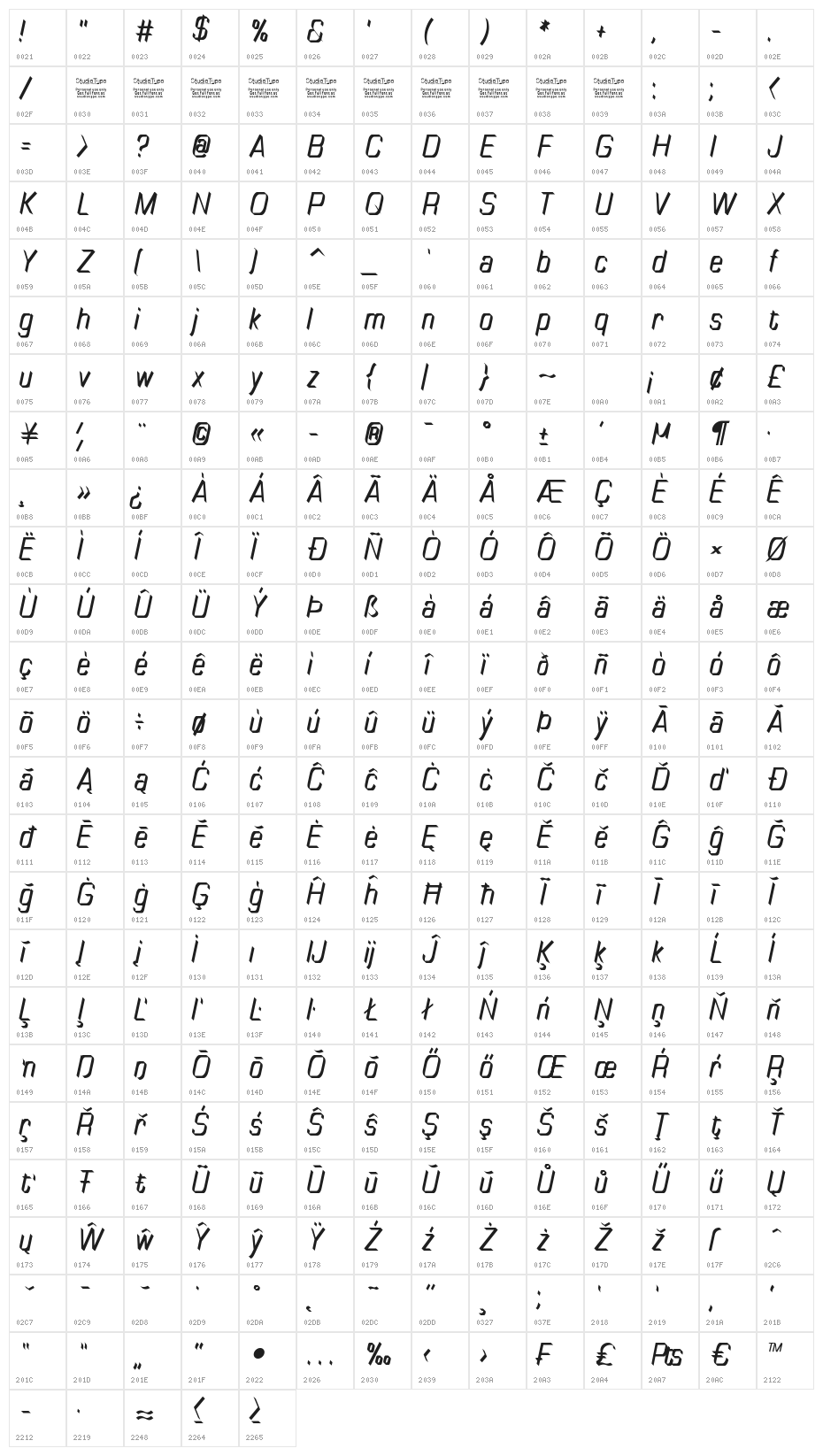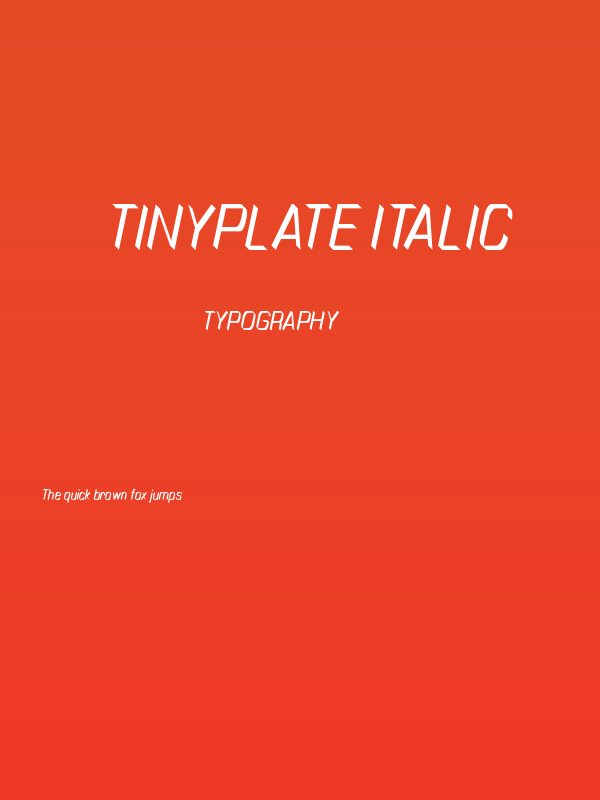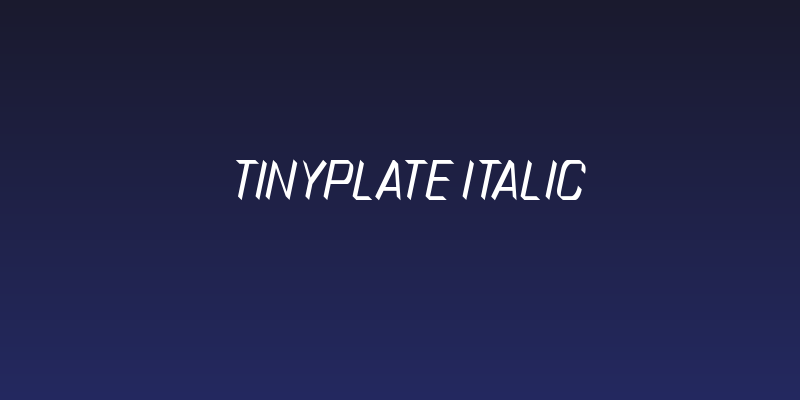
TinyPlate Italic Font
TinyPlate Italic Description
This font features a modern, italicized style with a distinct slant that gives it a dynamic and forward-moving appearance. The characters are bold and angular, with sharp edges and a geometric structure that conveys a sense of precision and strength. The uppercase and lowercase letters maintain a consistent style, with the lowercase letters slightly more condensed. The numerals and special characters are designed to match the overall aesthetic, providing a cohesive look across all elements. This font is suitable for projects that require a contemporary and assertive typeface.
| Proposed Projects | Ideal for branding, advertising, and editorial design where a strong, modern typeface is needed. |